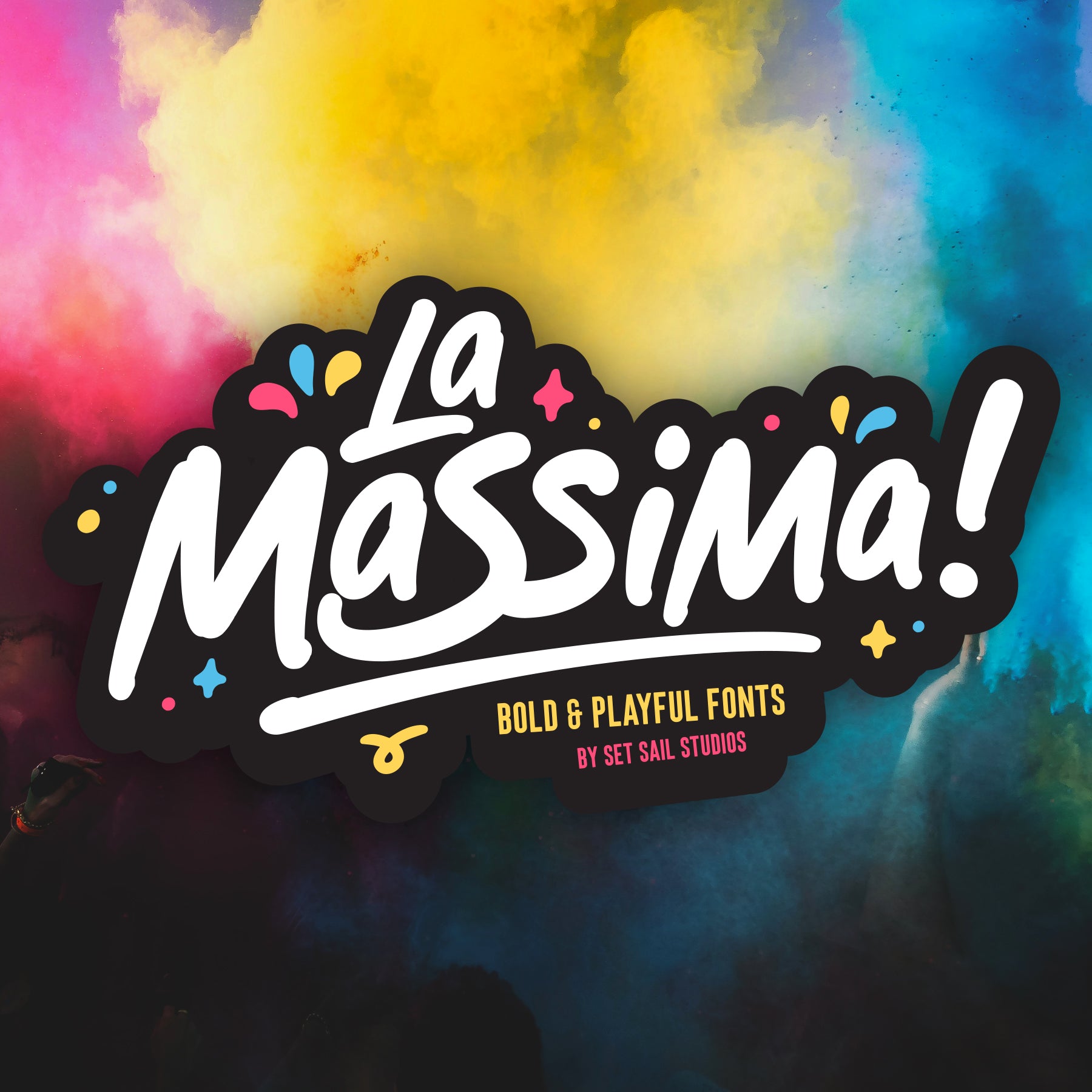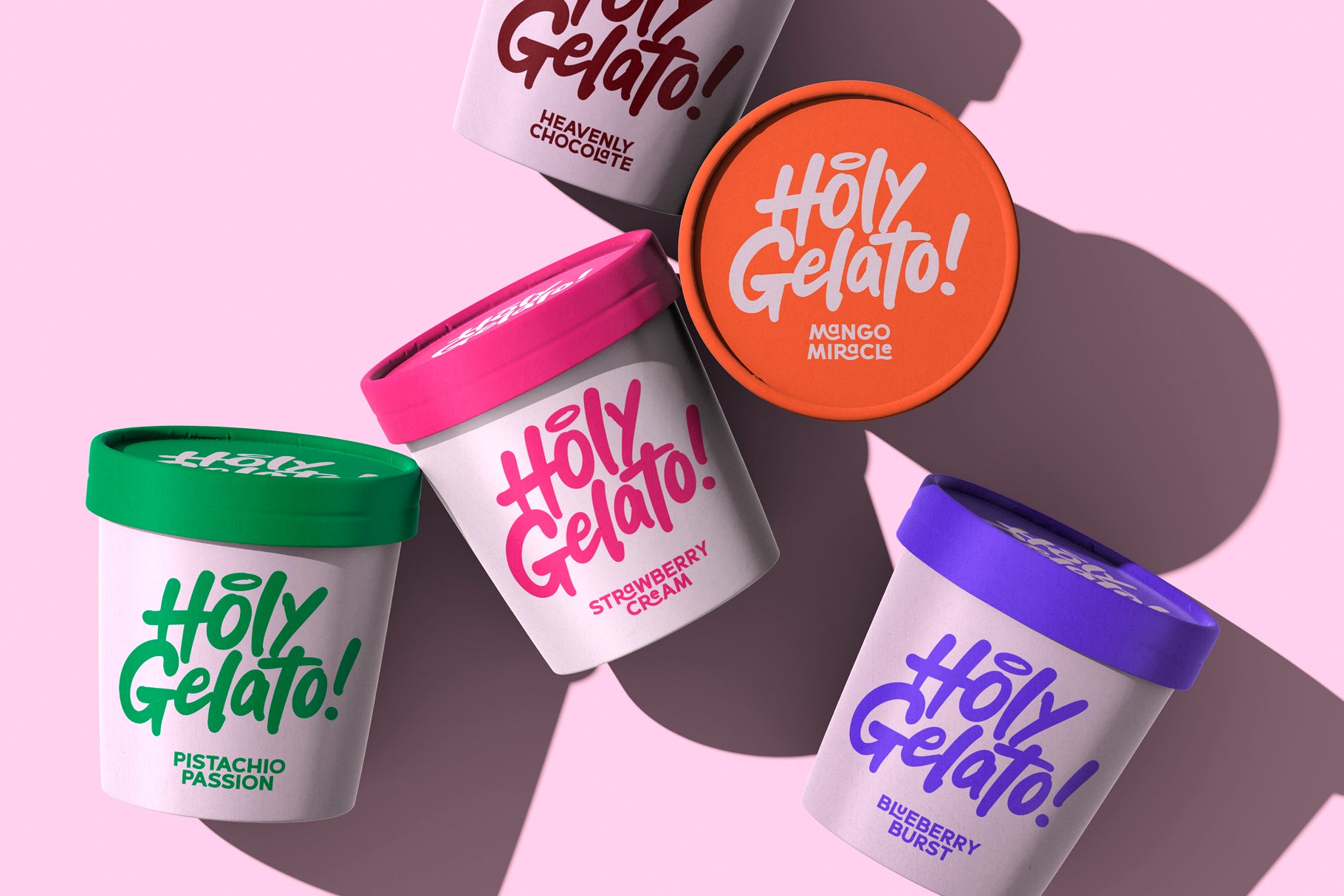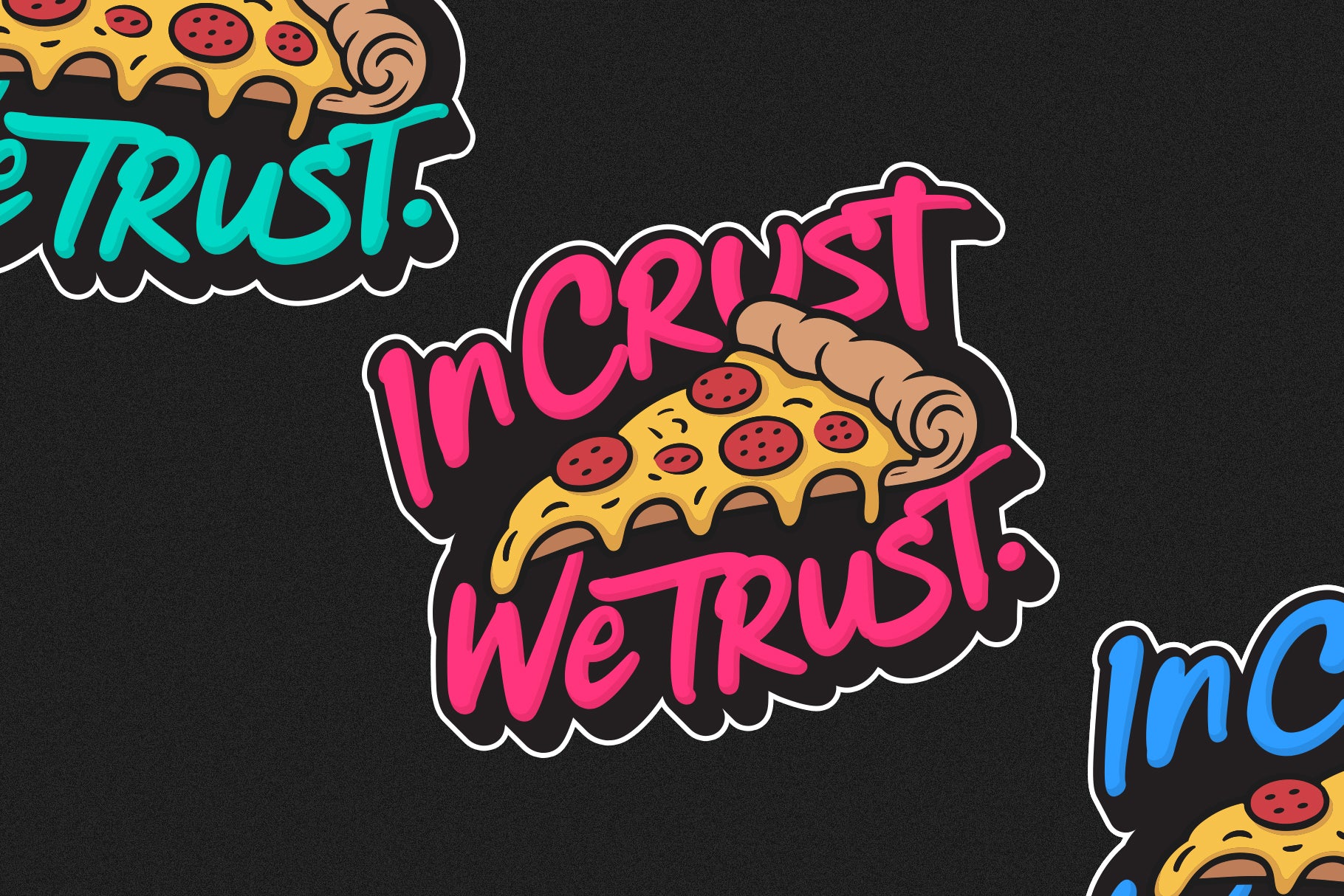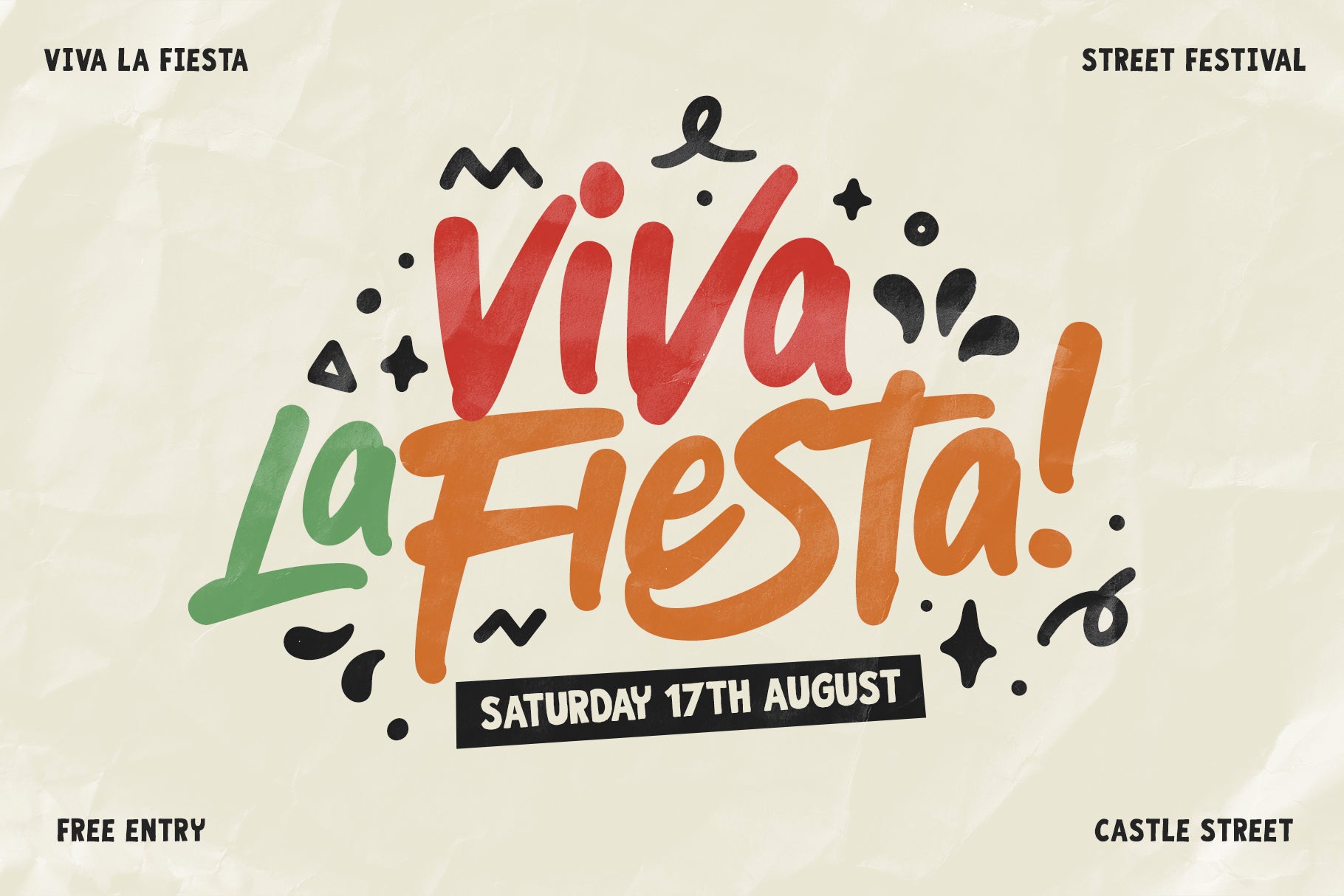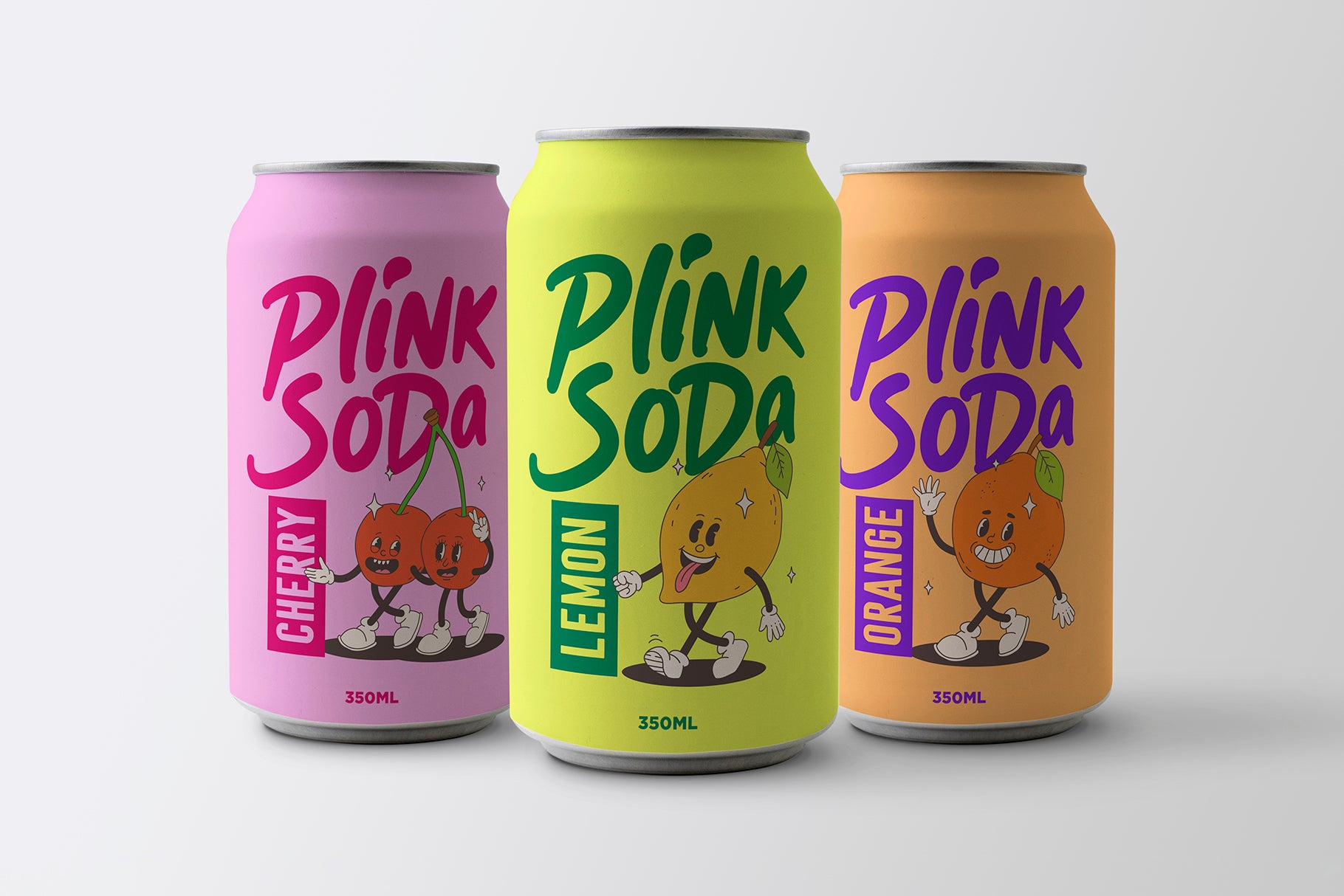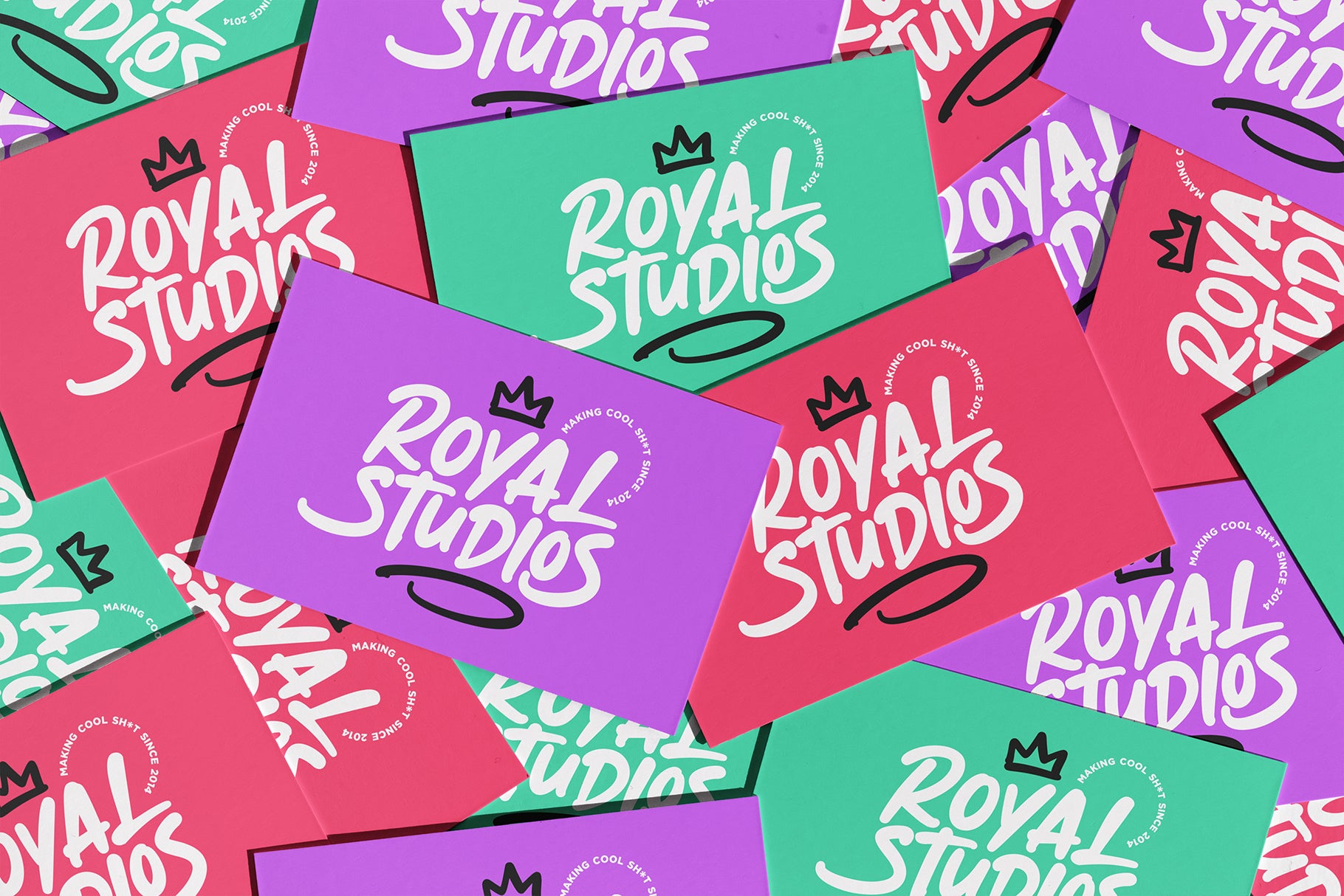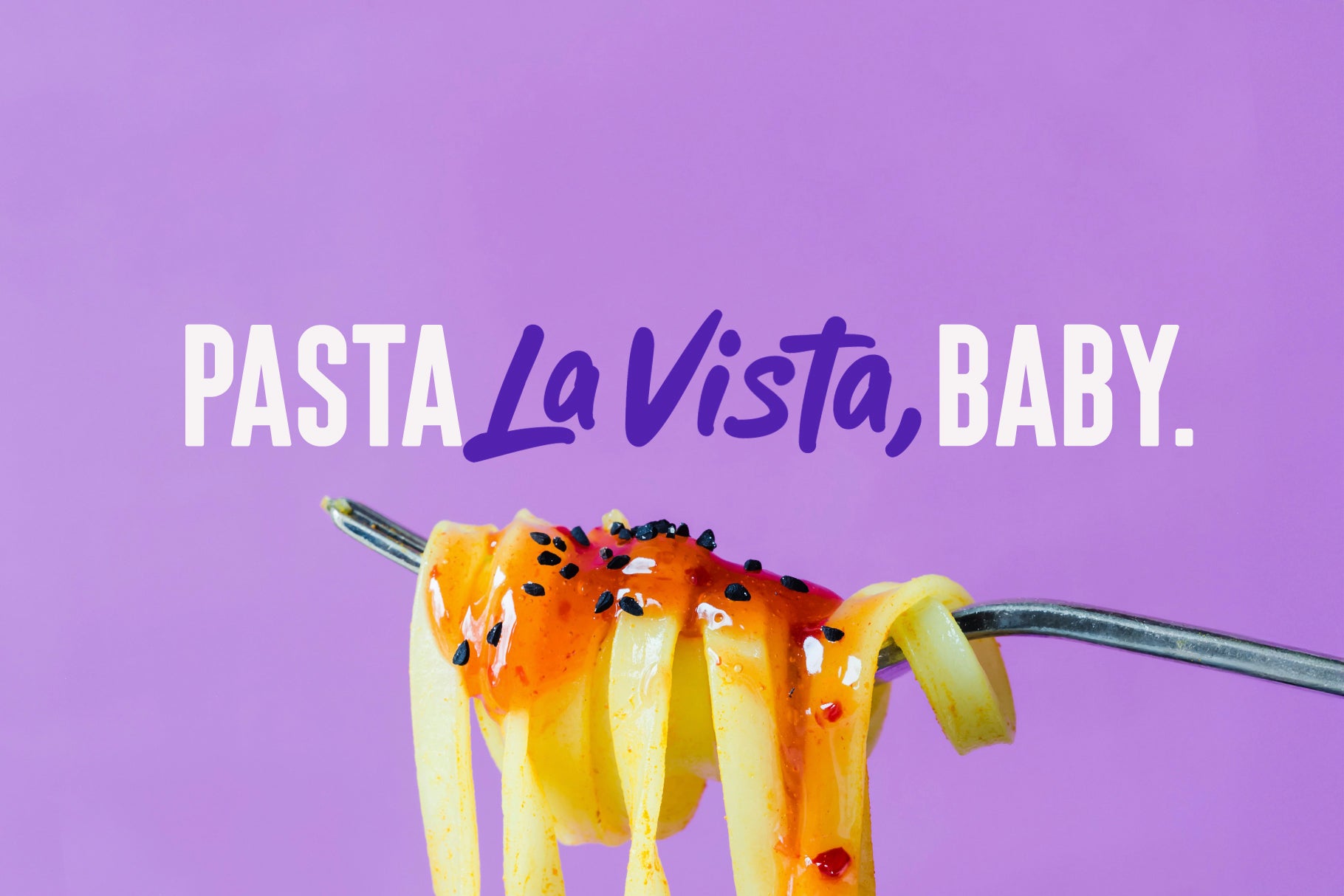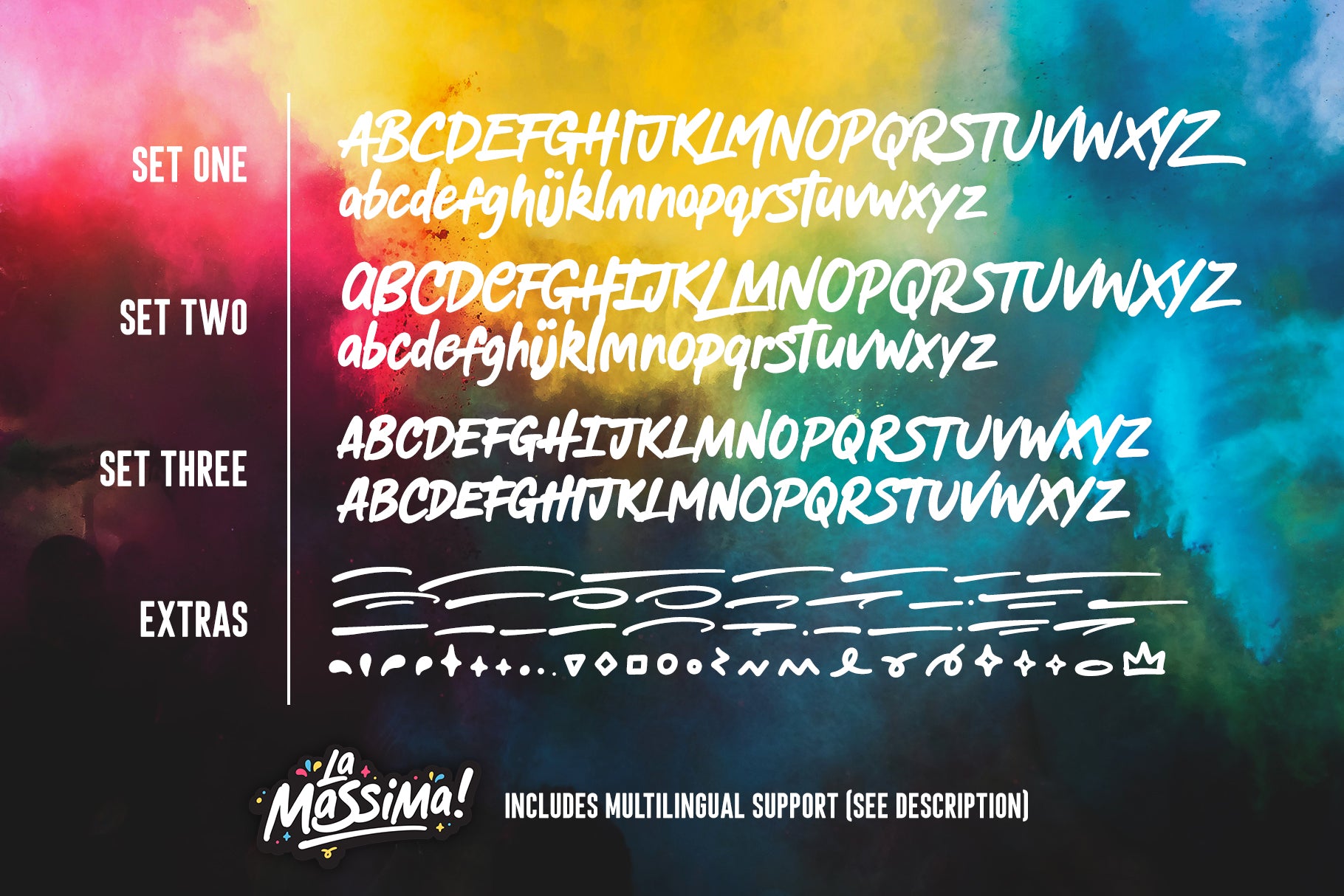
La Massima Font Set
The La Massima Font Set includes four bold hand-drawn fonts: La Massima One, La Massima Two, and La Massima Three, each offering unique character variations, along with La Massima Extras, which provides 52 playful underline swashes and doodles. This set features multiple letter variations for custom typography layouts, making it versatile for various design projects.